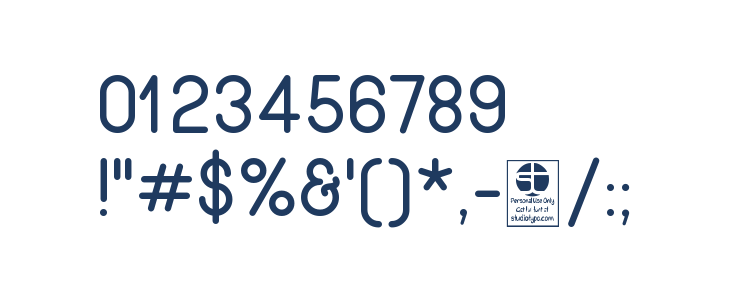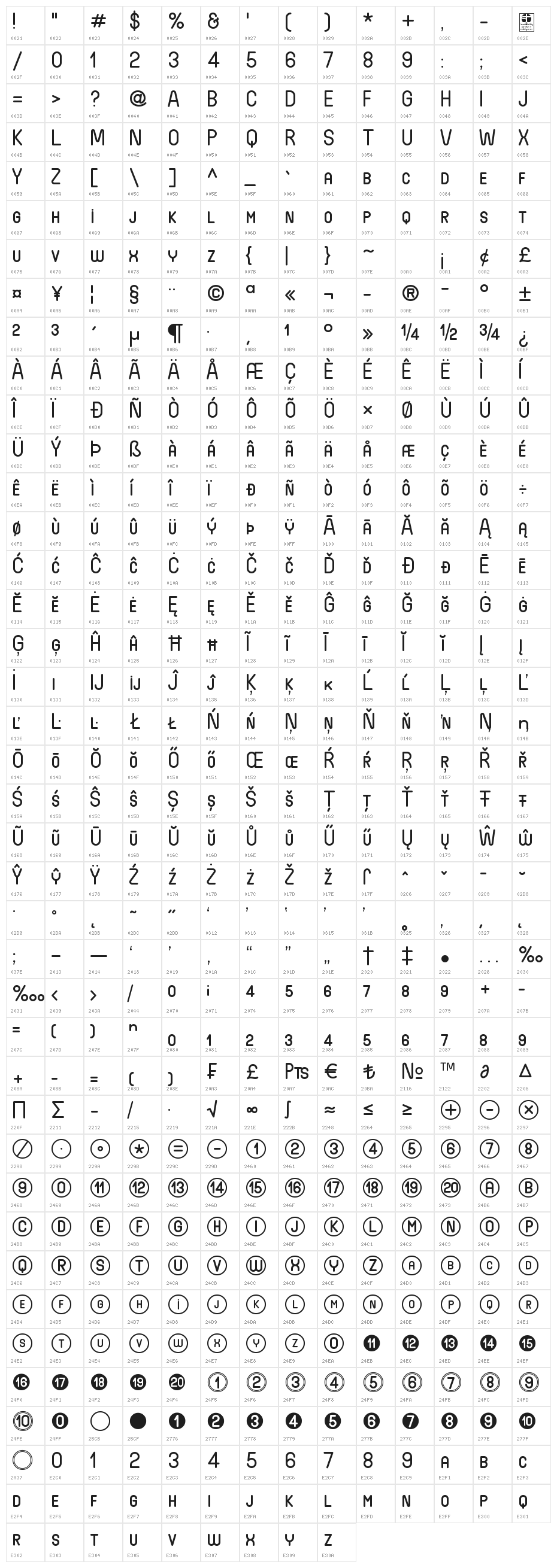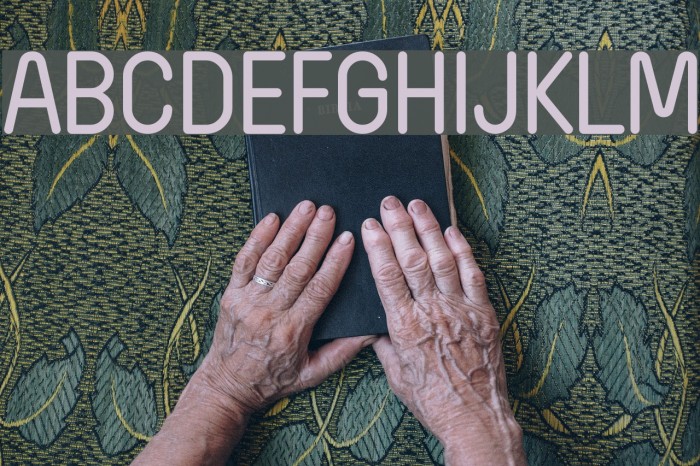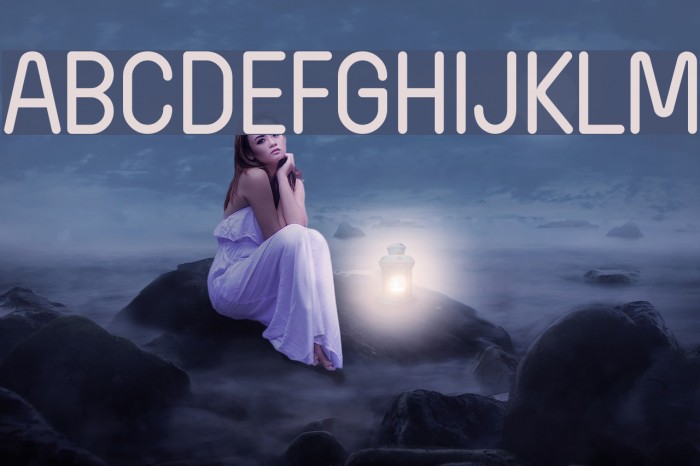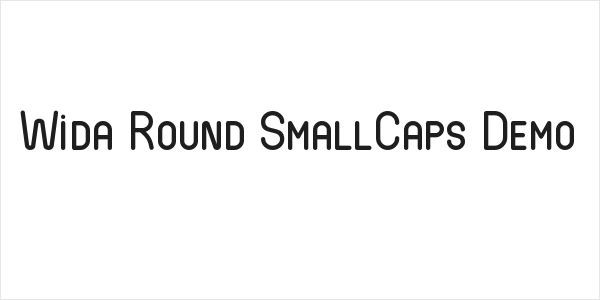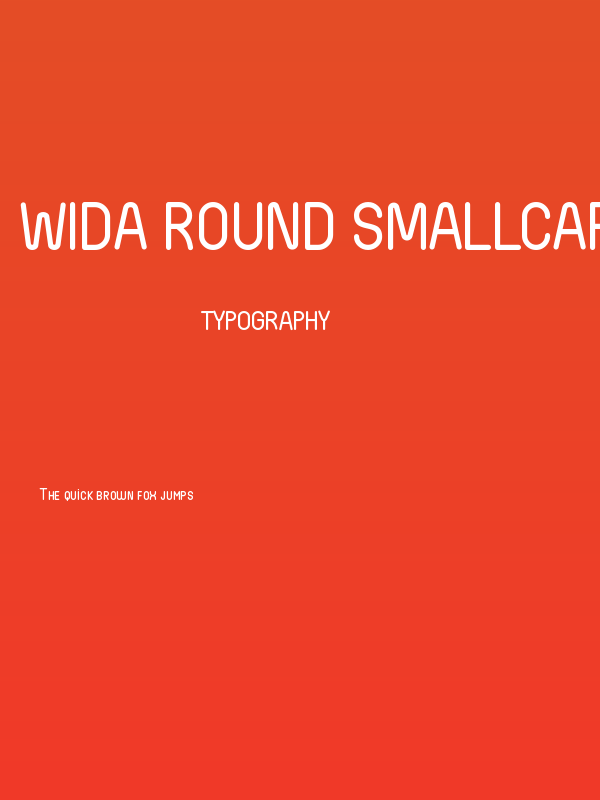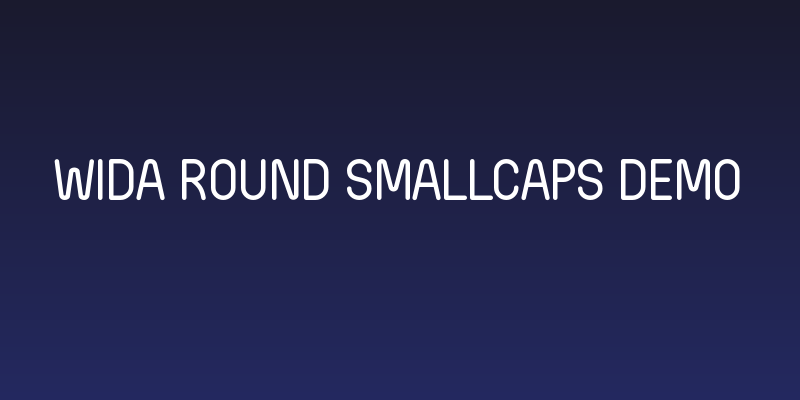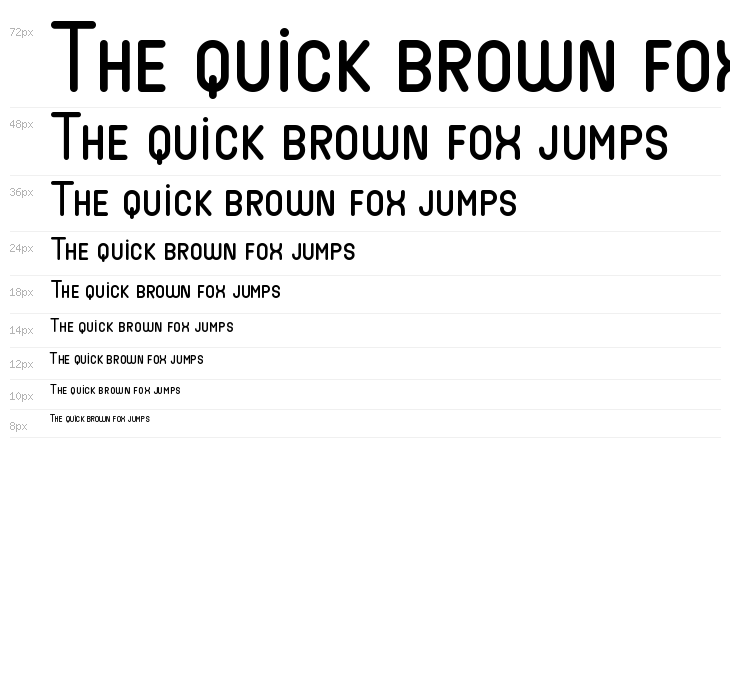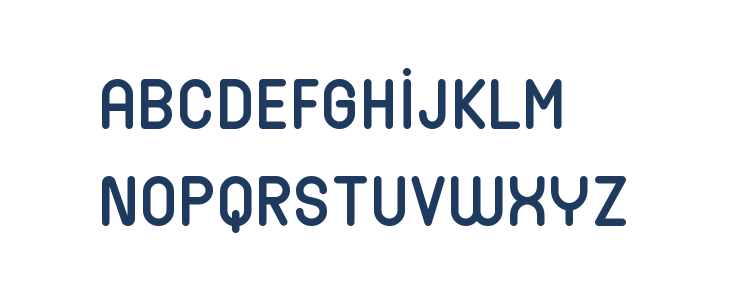
Wida Round SmallCaps Demo Font
Wida Round SmallCaps Demo Description
This font features a clean and modern design with rounded edges, giving it a friendly and approachable appearance. The characters are uniform in height, creating a cohesive look across both uppercase and lowercase letters. The numerals and special characters maintain the same rounded style, ensuring consistency throughout. The font's simplicity and clarity make it highly legible, suitable for various applications where readability is key. Its geometric shapes and even stroke widths contribute to a balanced and harmonious aesthetic.